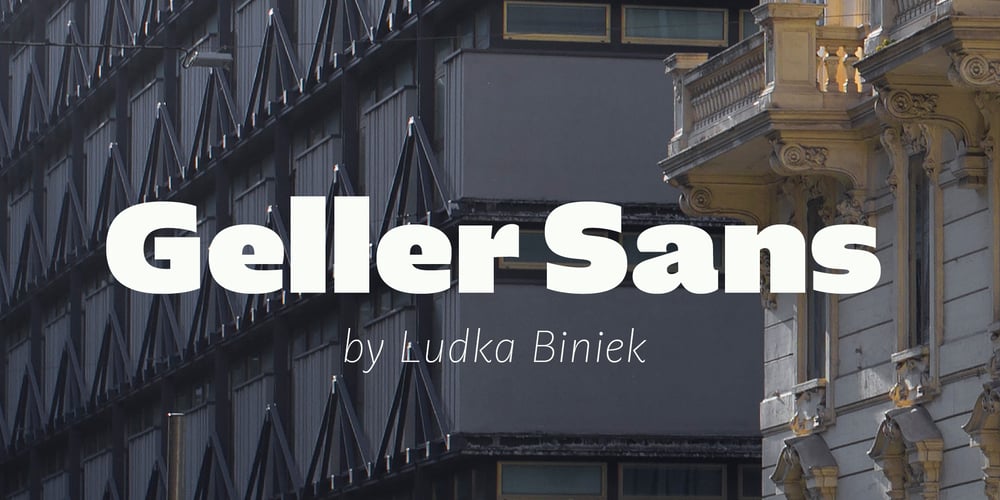
Geller Sans Font Family was designed by Ludka Biniek and published by Ludka Biniek. Geller Sans contains 104 styles and family package options. Geller Sans typeface have been developed based on his serif predecessor’s proportions. He’s quite handsome, quite organised. Looking at thin–extraheavy styles he has enough of charm to stand out in advertisement. In text styles you can relay on him. He’s able to meet demand of complex design tasks.Geller Sans has been fitted with wide range of OpenType features. As Geller Serif, he has bullets & dingbats, for easier entry-point making. Entire font family comes in 4 width (Regular, Narrow, Condensed, Compressed). Each width finds its best application in different typographic fractions what makes Geller Sans easy to apply in editorial graphic design. Who’d like to challenge him?